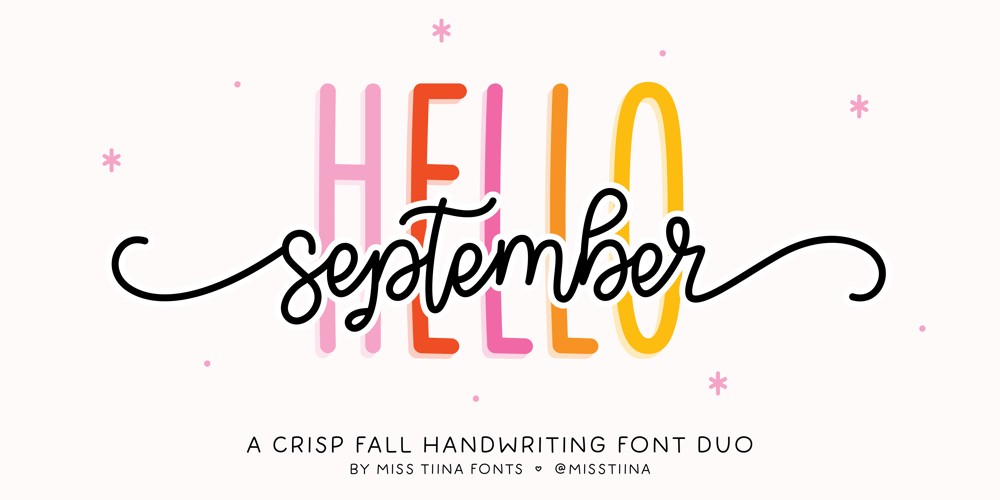
MTF Hello September Font Duo Font Family was designed by Tina Raparanta and published by Miss Tiina Fonts. MTF Hello September Font Duo contains 2 styles and family package options. Hello September Font Duo is a pair of stylish fonts that flow together effortlessly. Hello September Sans is a tall, skinny farmhouse style font and Hello September Script is a sweet script font with a ton of curly swashes!